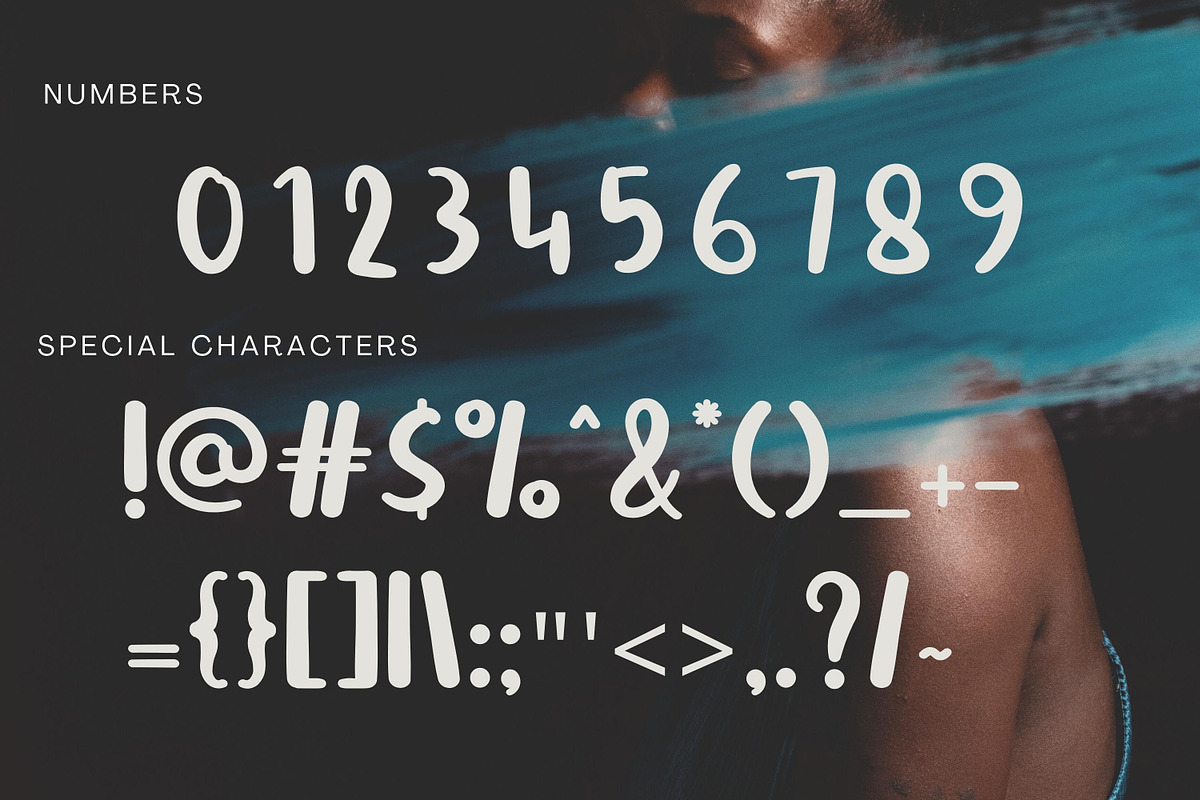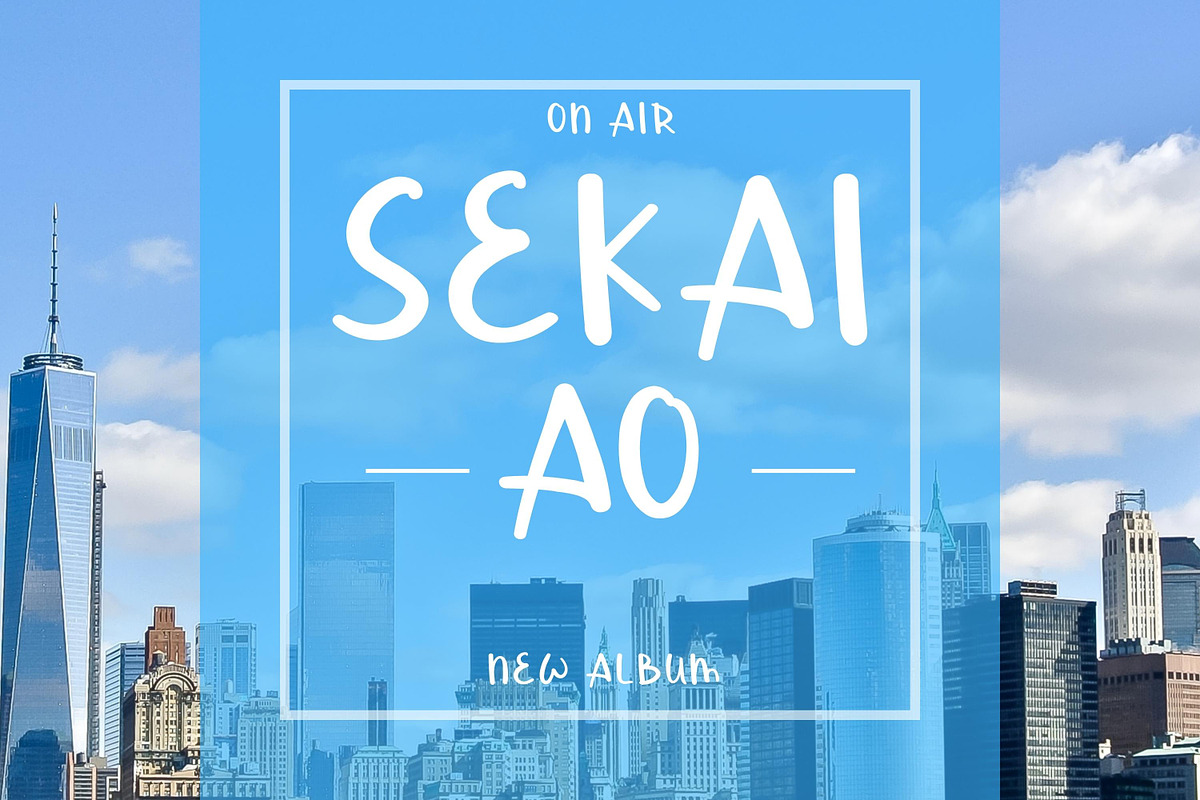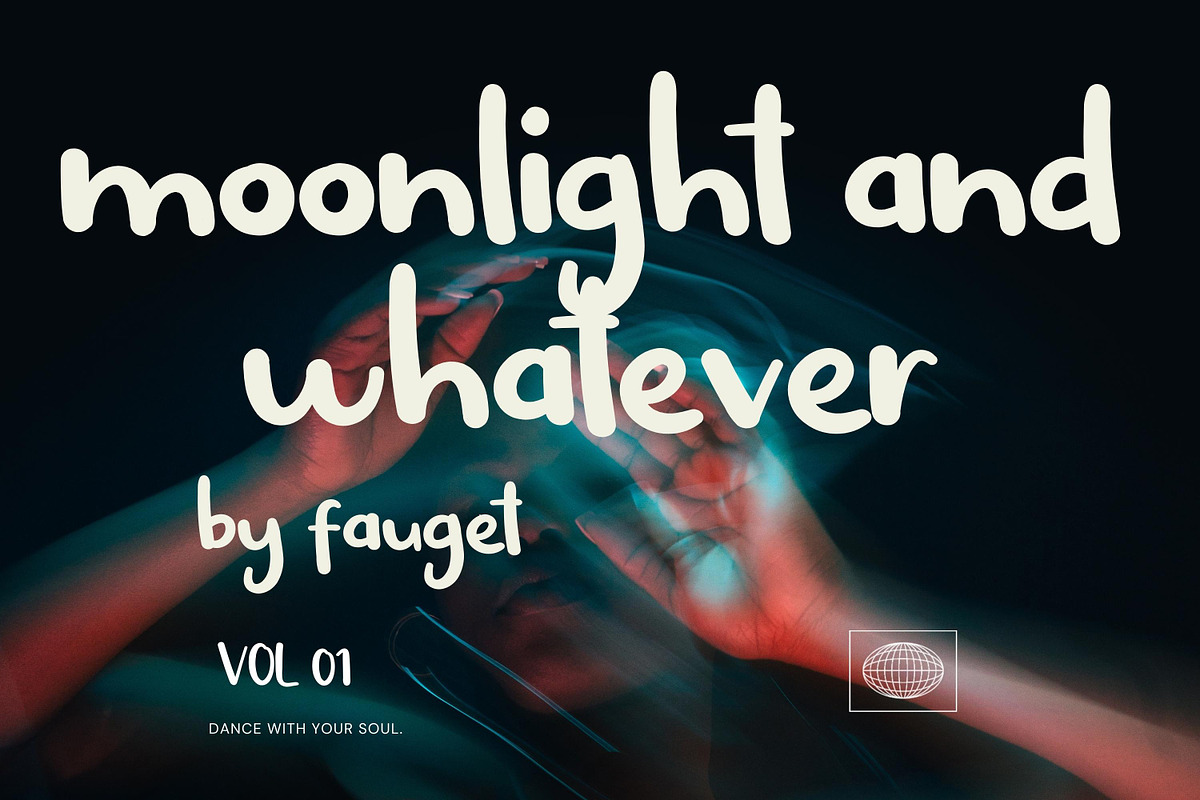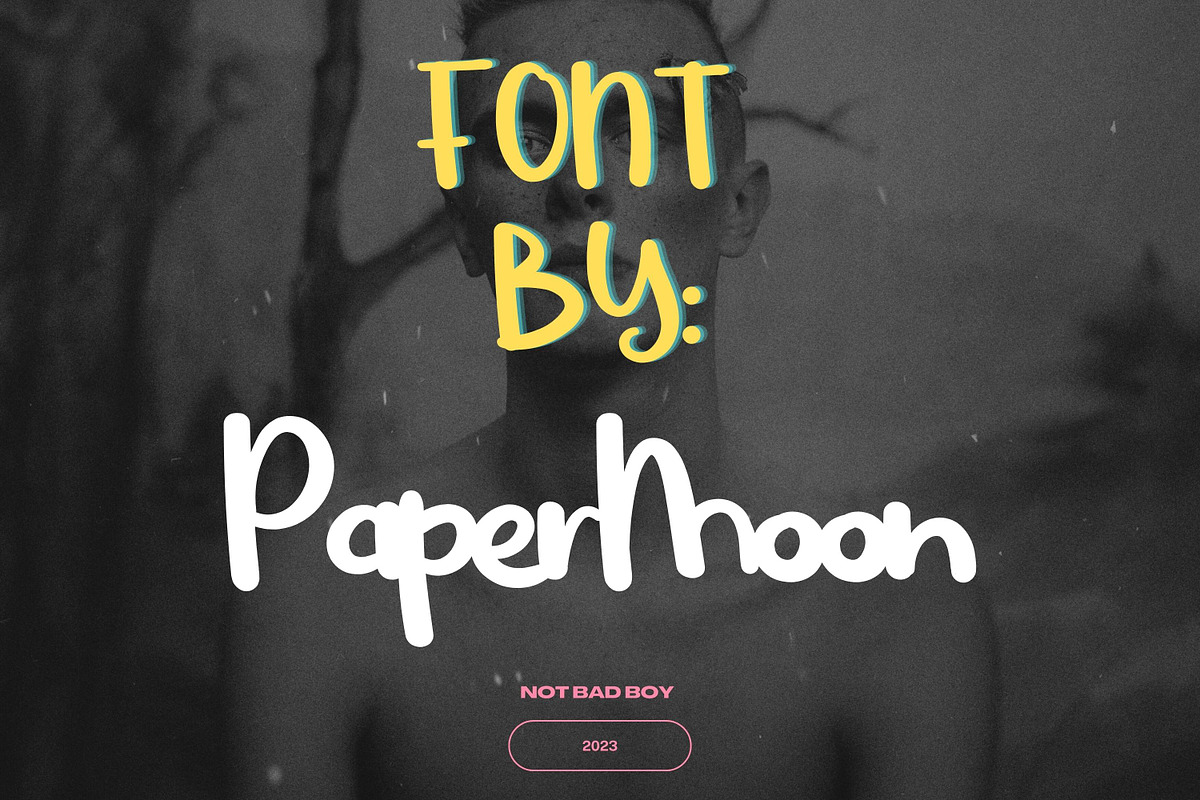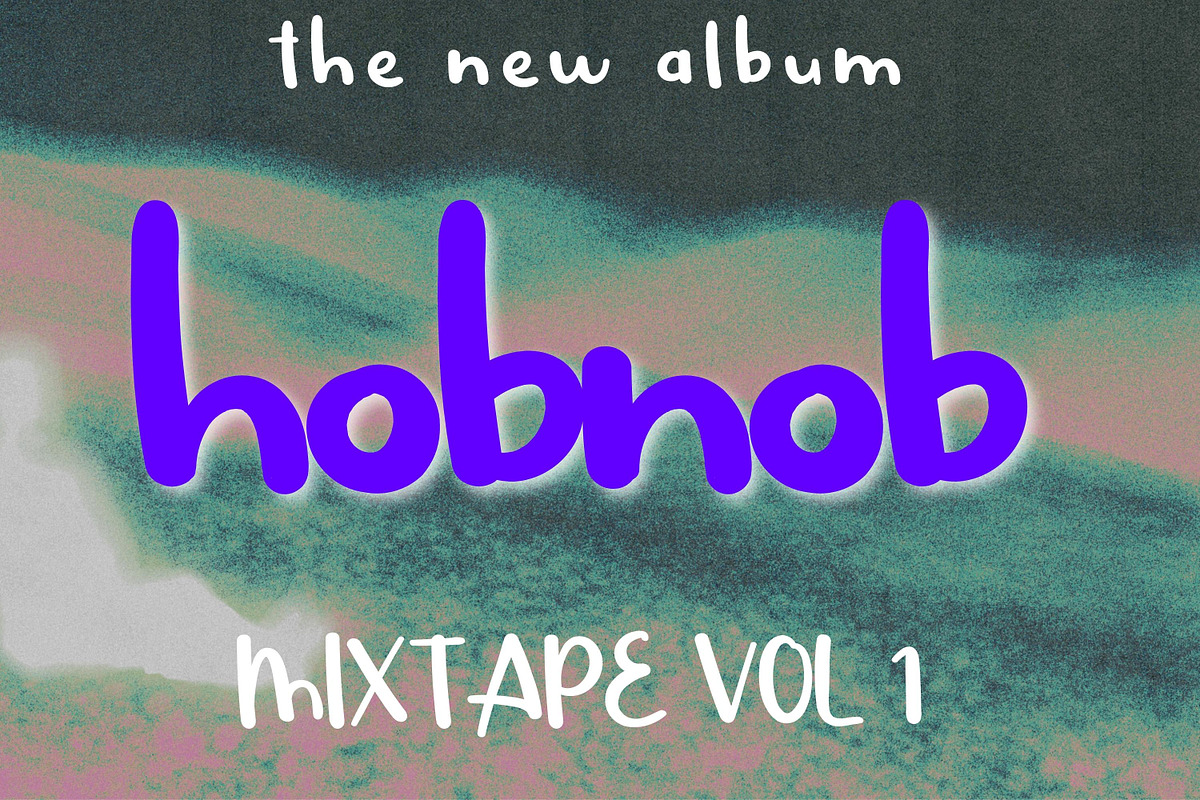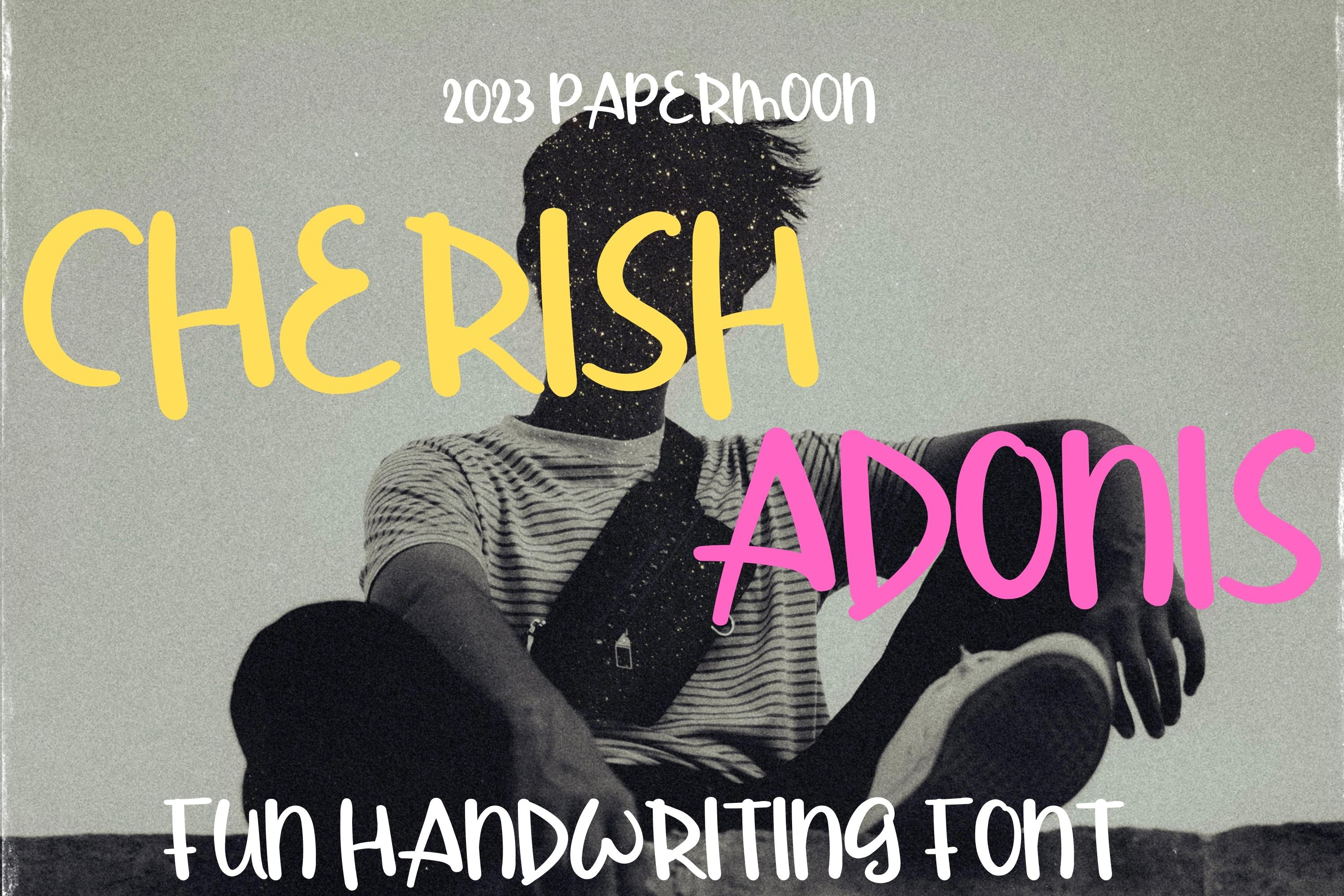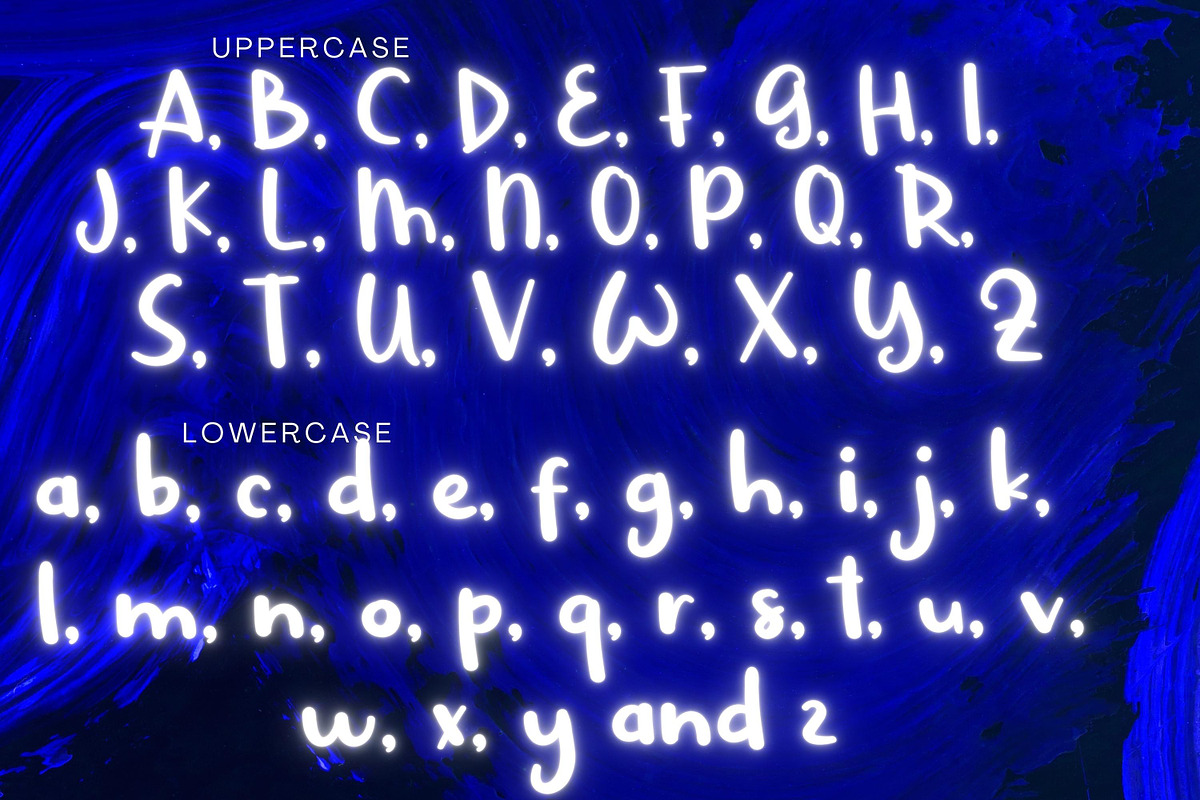
Cherish Adonis: Fun Handwriting Font
Introducing Cherish Adonis Font: Cherish Adonis Font is an exciting handwriting style typeface with a delightful brush stroke design. This unique font radiates a charming vibe, making it the perfect choice for a wide range of industries, including architecture, baking, boutiques, culinary arts, crafts, beverage branding, florists, publishing, and more!
Cherish Adonis Font includes a comprehensive collection of uppercase and lowercase letters, numbers, a diverse selection of punctuation marks and symbols, as well as ligatures and swoosh elements. The character set is exceptionally captivating and meticulously crafted with impeccable spacing and kerning. Cherish Adonis Font is an ideal choice for various projects (with an extended license), including blog headers, business cards, invitations, labels, product packaging, quotes, stickers, titles, and more.
Experience the creative possibilities with Cherish Adonis Font and elevate your design projects to the next level!